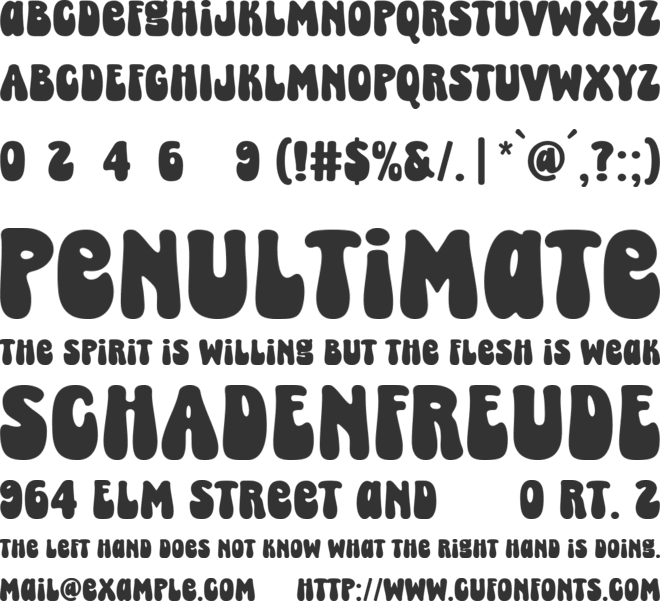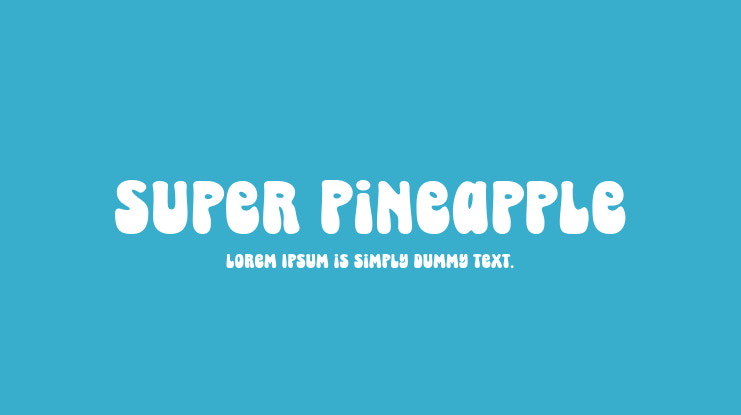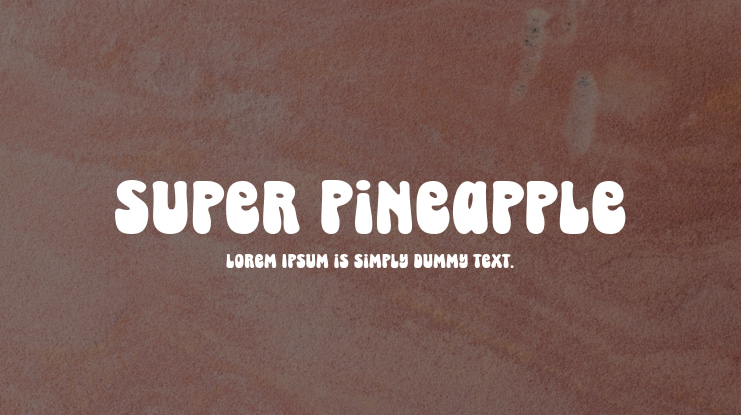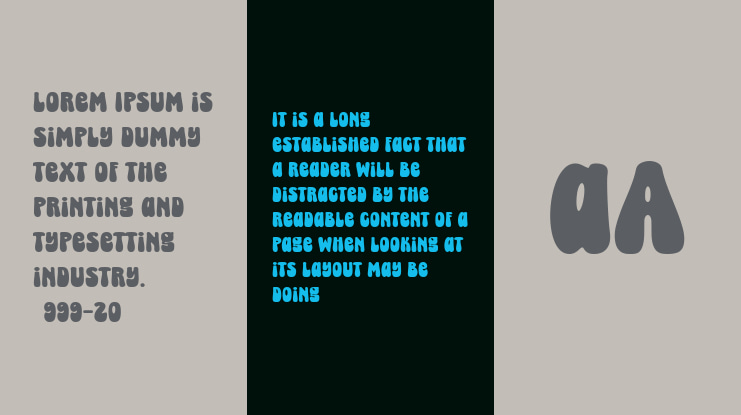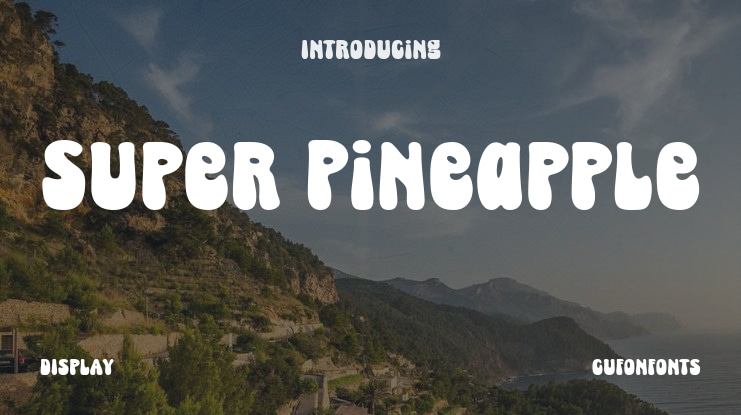
Super Pineapple Font
Super Pineapple is a font that exudes a playful and energetic spirit. Its bold and round letterforms create a friendly, approachable look, while the bottom-heavy design adds a touch of whimsy and stability. The overall vibe is distinctly groovy, reminiscent of the carefree and optimistic aesthetics of the 60s and 70s. This font is perfect for projects that aim to capture a sense of fun, youthfulness, and nostalgia. It would be ideal for use in designs targeting a younger audience or for creating a cheerful and inviting atmosphere.